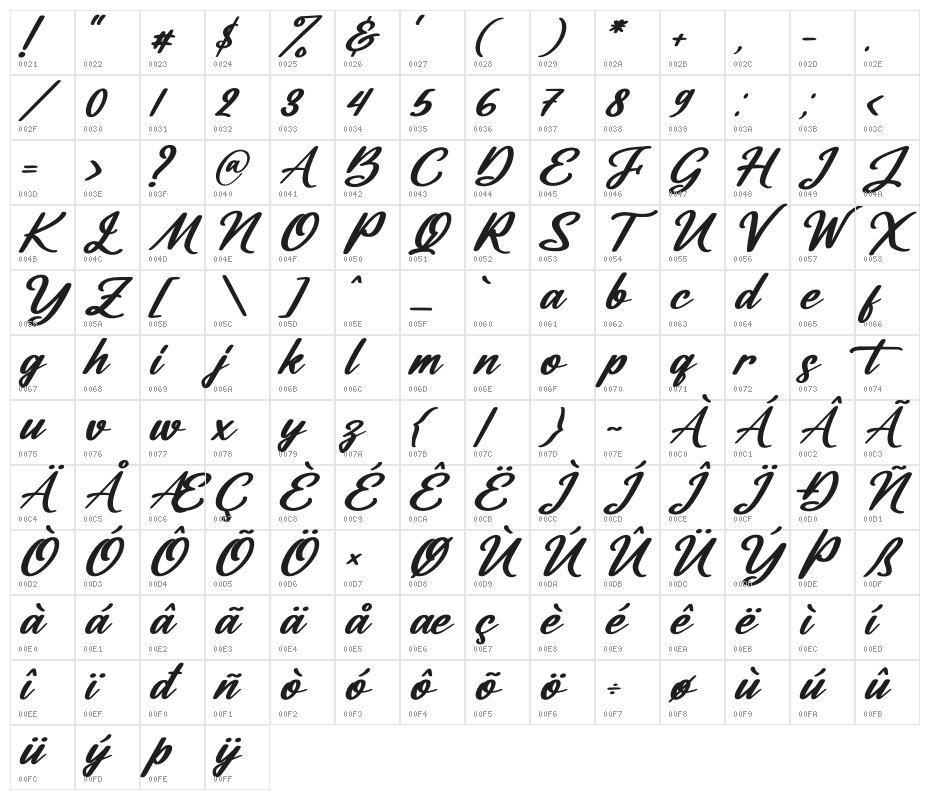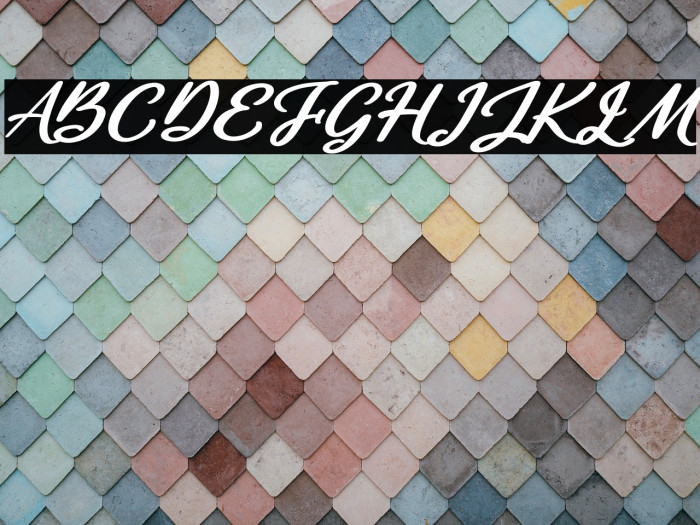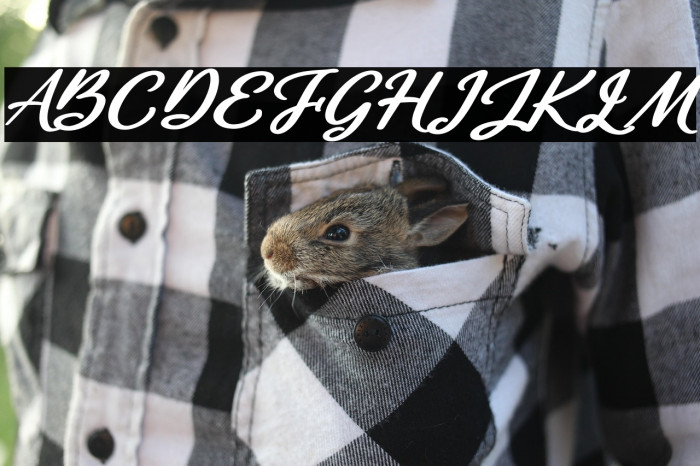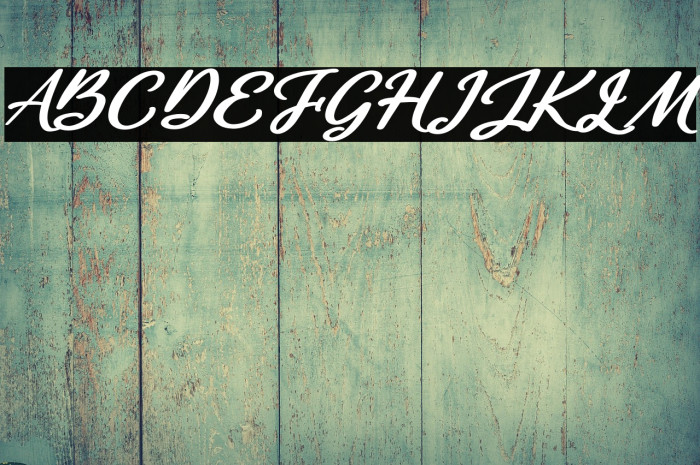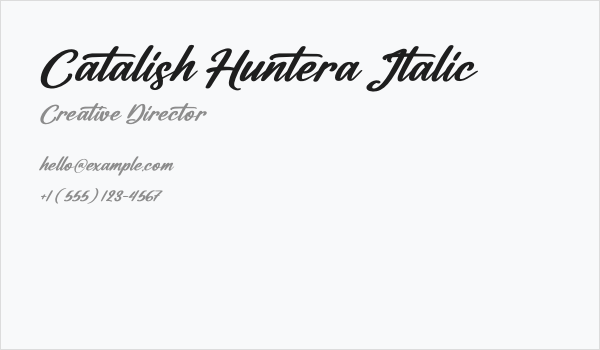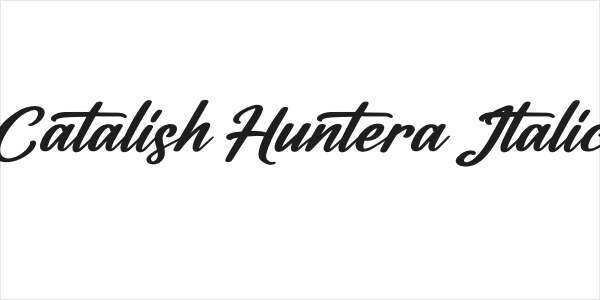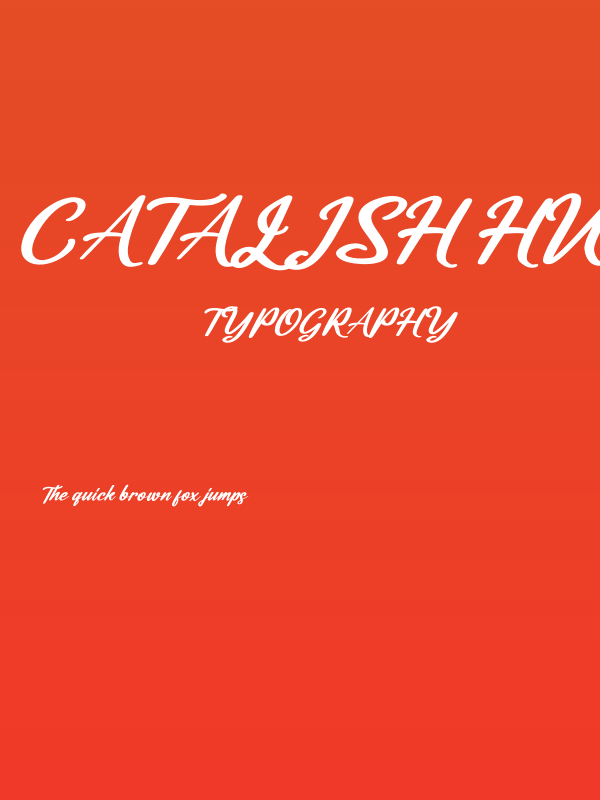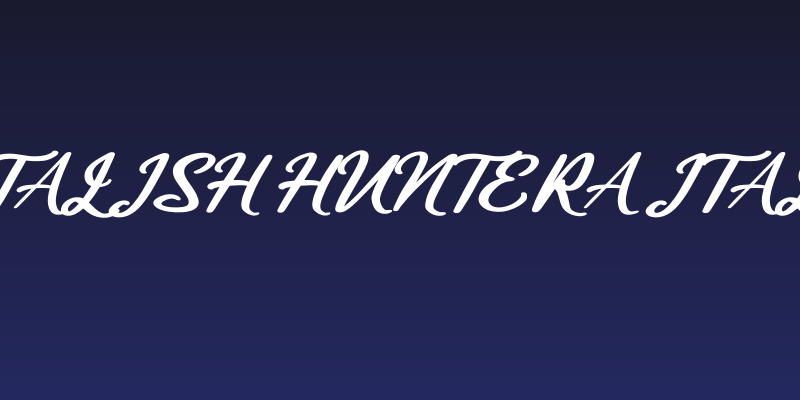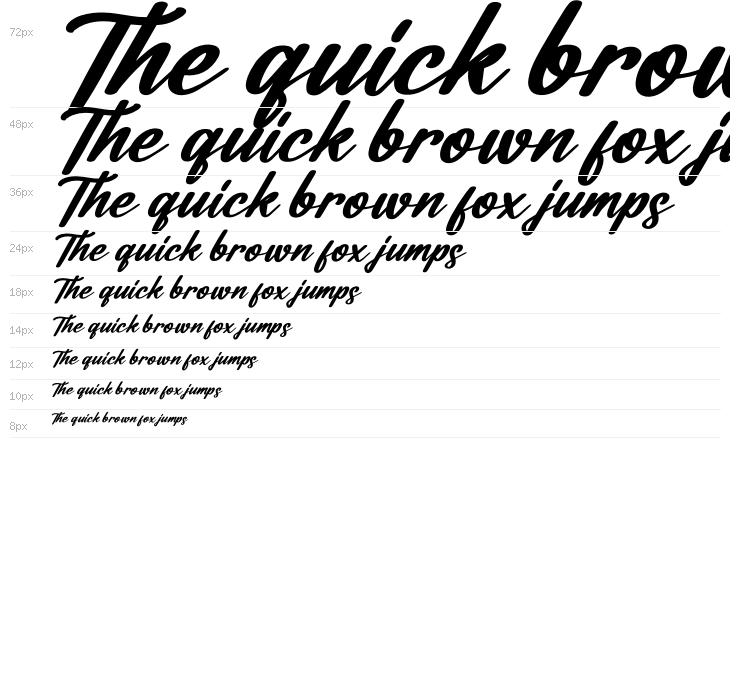
Catalish Huntera Italic Font
Catalish Huntera Italic Description
This font features a dynamic and flowing script style, characterized by its elegant and cursive letterforms. The uppercase letters have a distinct slant and are embellished with sweeping curves, giving them a sophisticated and stylish appearance. The lowercase letters maintain a consistent flow, with smooth connections between each character, enhancing the overall fluidity of the text. The numerals are bold and maintain the same cursive style, ensuring uniformity across all characters. Special characters are designed with the same attention to detail, incorporating the elegant curves and slants that define this font. The overall impression is one of elegance and flair, making it suitable for projects that require a touch of sophistication.
| Use Case | Logos, Invitations, Decorative Headlines |
| Proposed Projects | Ideal for wedding invitations, elegant branding, personal stationery, and decorative headlines. |